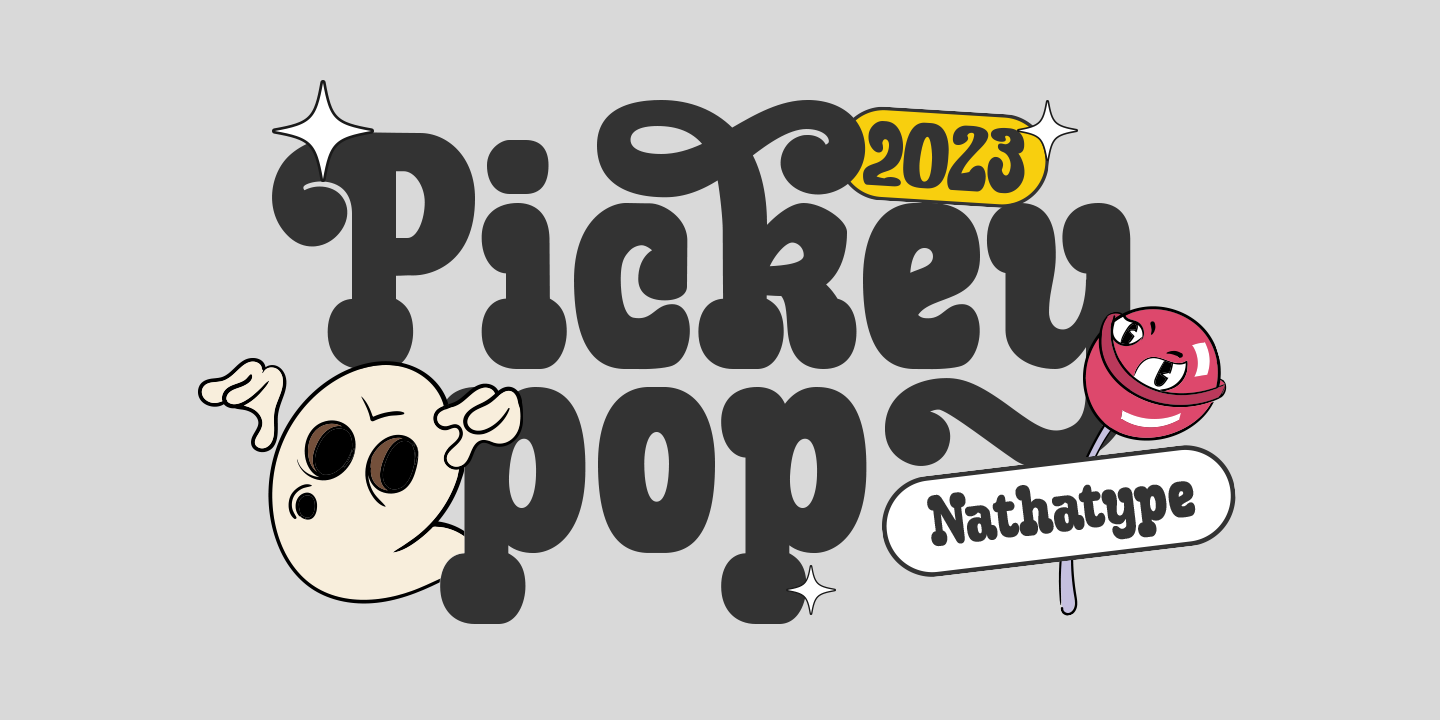
Pickey Pop Font is ideal for children's book illustrations, candy brand packaging, toy company logos, ice cream shop signage, birthday party invitations, kids' clothing brands, playful app interfaces, cartoon character design, colorful poster campaigns, and fun social media graphics. This delightful typeface brings joy and whimsy to designs that need to capture youthful energy and playful spirit.
What makes Pickey Pop Font exciting is its irresistible combination of playful charm and vibrant personality that instantly creates smiles. The font features bouncy, cheerful letterforms with unique character quirks that evoke happiness and fun. Its delightful design elements include rounded edges and playful proportions that give it a hand-drawn, approachable feel, perfect for brands targeting families, children, or anyone who appreciates lighthearted, joyful design aesthetics.
Pickey Pop Font comes in colorful font families including Regular, Bold, Light, Outline, Shadow, and Decorative variations. Each family member captures the playful essence of the original design while providing different stylistic options to create engaging typographic displays that work beautifully for both digital and print applications.
Whether you're designing for children's markets or creating fun brand experiences, Pickey Pop Font Free Download delivers the perfect blend of playfulness and readability. The font's cheerful character and vibrant appeal make it an excellent choice for designers who want to create positive emotional connections through typography that celebrates joy, creativity, and the wonder of childhood imagination.